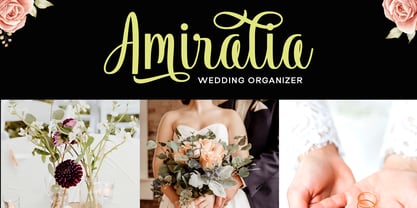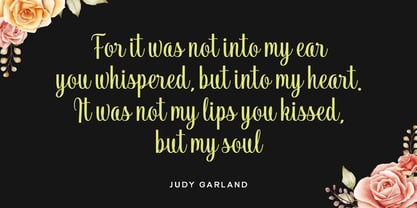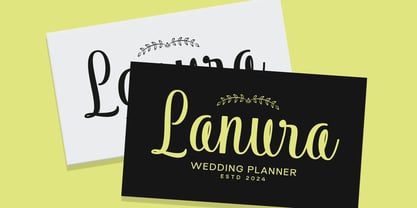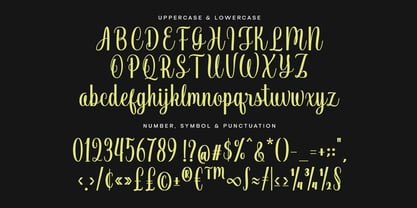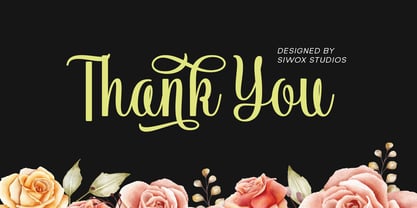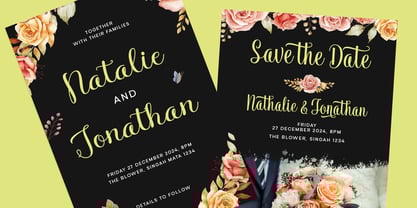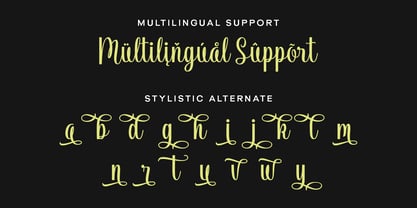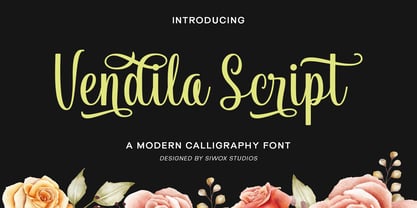
Vendila Script
The Vendila Script Font Family was designed by Rizaldi Wandani and published by Siwox Studios. Vendila Script contains 1 styles. More about this family
Vendila Script is a modern calligraphy font that feels charming and elegant. It looks stunning on wedding invitations, thank you cards, quotes, greeting cards, logos, business cards, and other designs that require a handwritten touch. It is also PUA encoded which means you can access all the glyphs and swashes with ease!